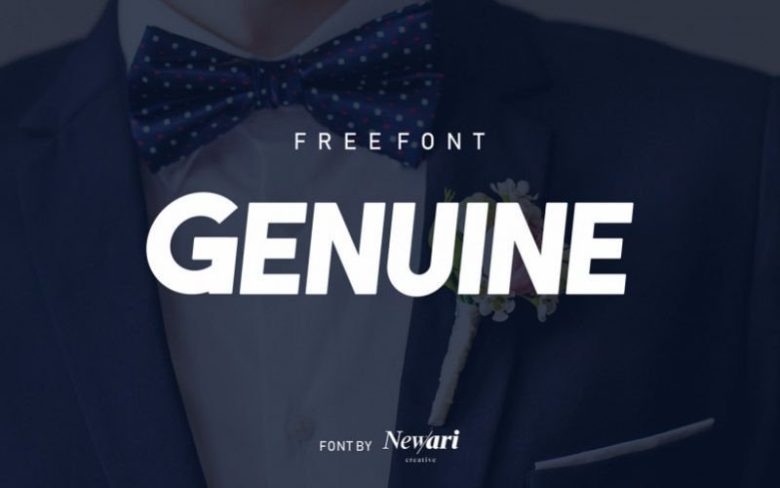
Genuine Sans Font
Introducing Genuine Font is an bold and elegant font. Sans fonts with readability and unique personality have been created. It is designed to blend soft curves, sharp straight lines, and acute angles. The font combination helps you create elegant designs and in works large display titles, logos and small paragraphs.